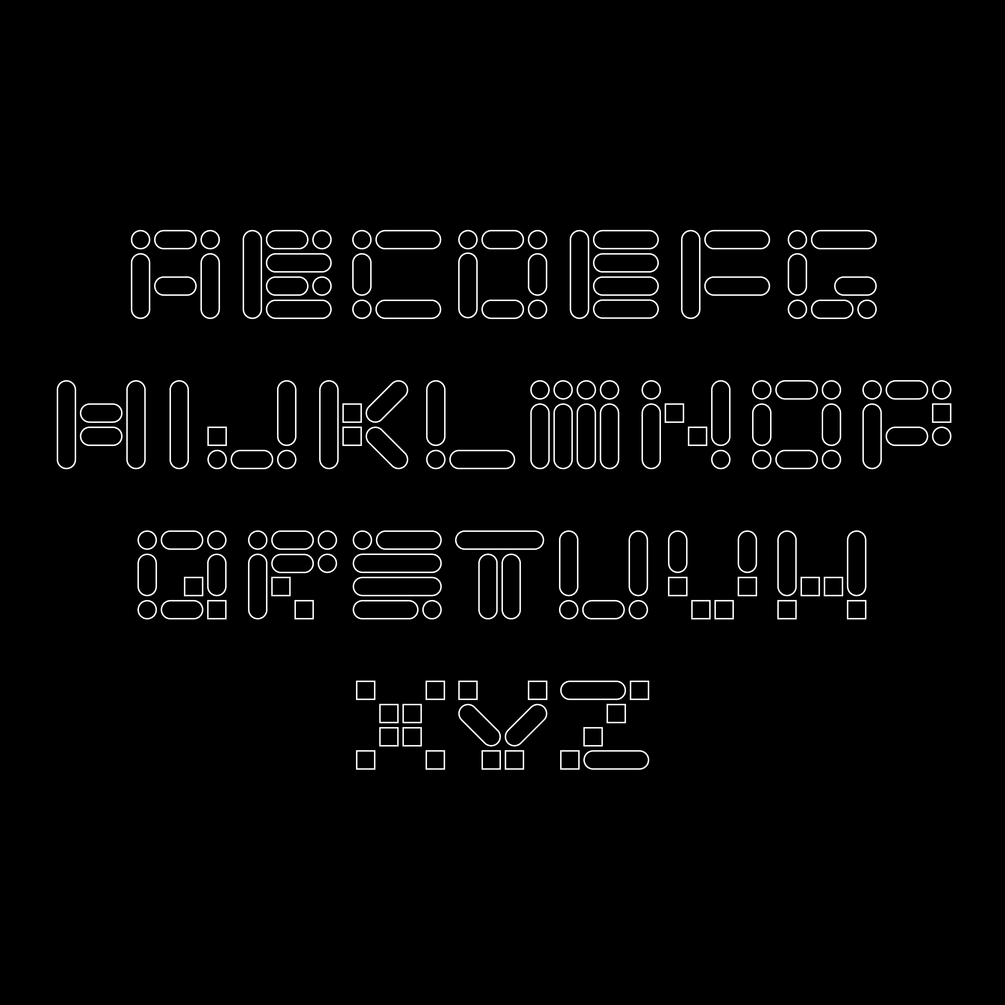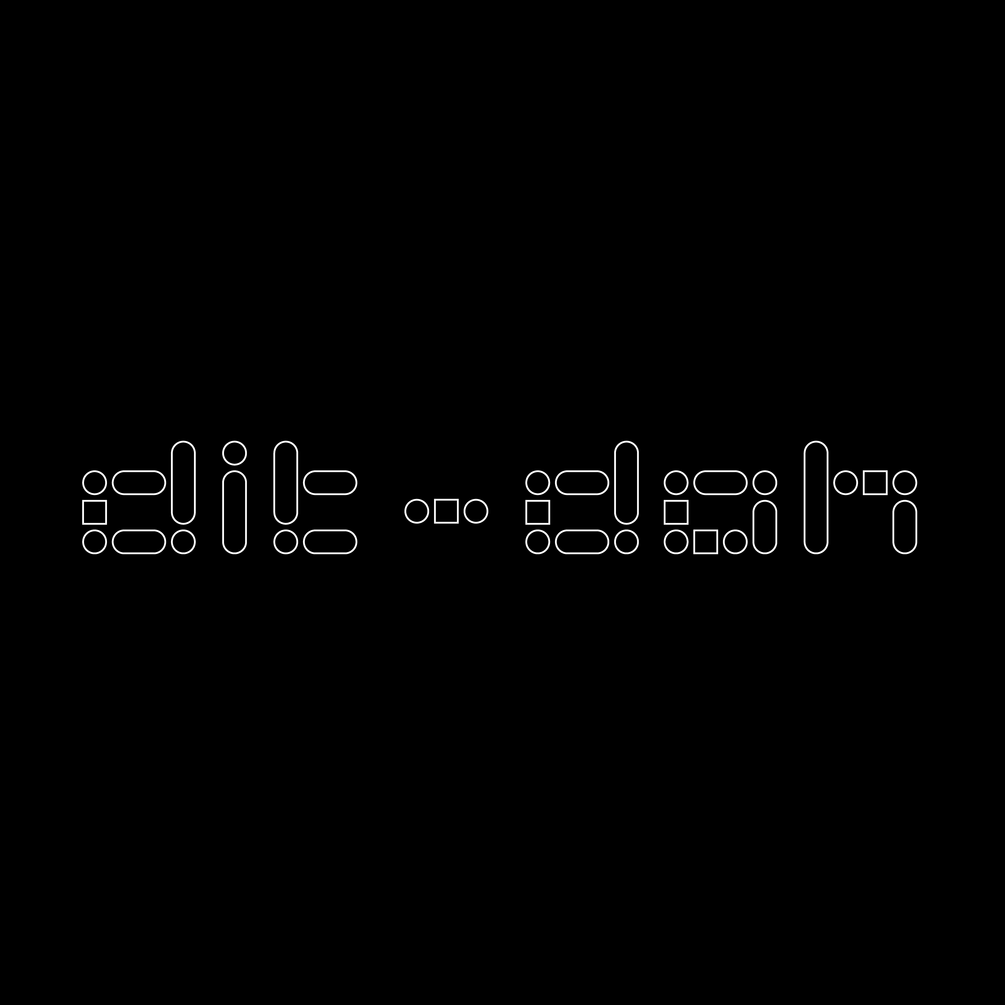
Dit-Dah
Dit-Dah is an experimental typeface inspired by the work of legendary design agency MuirMcneil, the 4x4 grid famously implemented by Armin Hoffman and the visual language of morse code.
Exploring the idea of constructing letterforms through strict rules and systems, each glyph is made from pill capsule to draw out the shape of the character, squares are used when only one segment of the grid can be used and circles are utilised where a traditional letterform would curve.